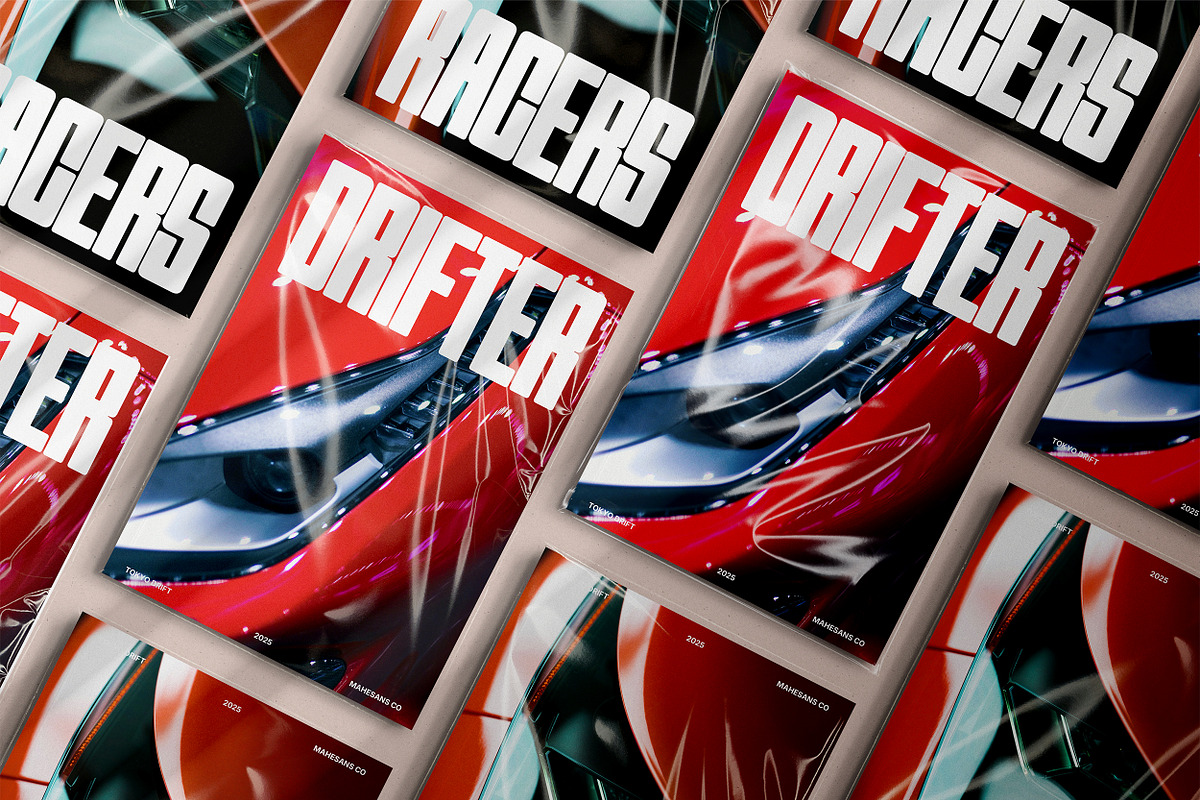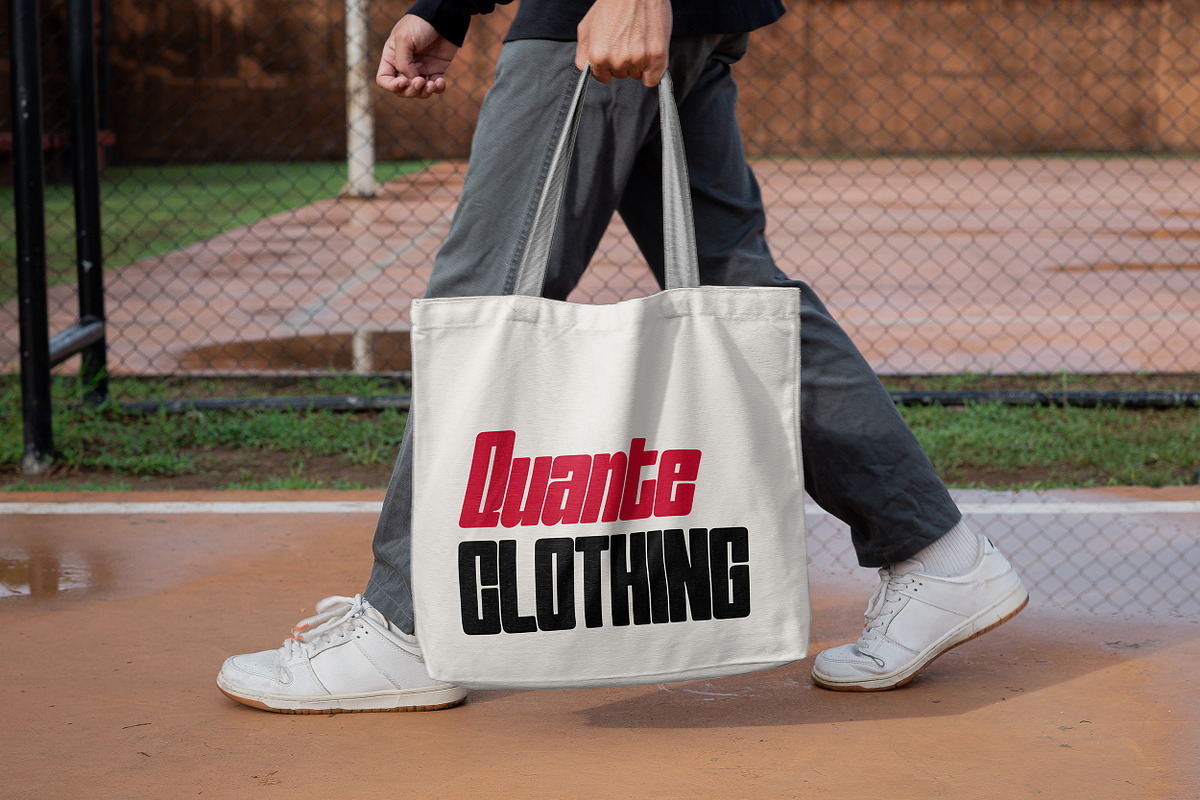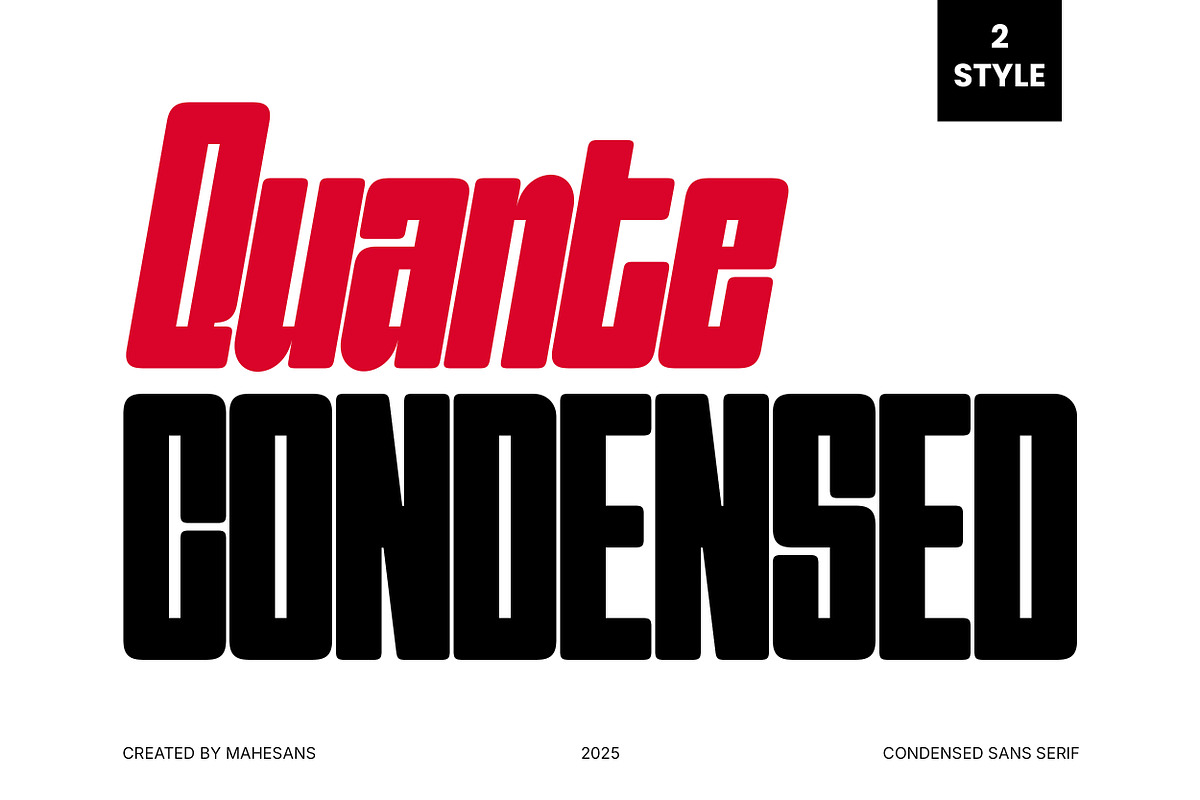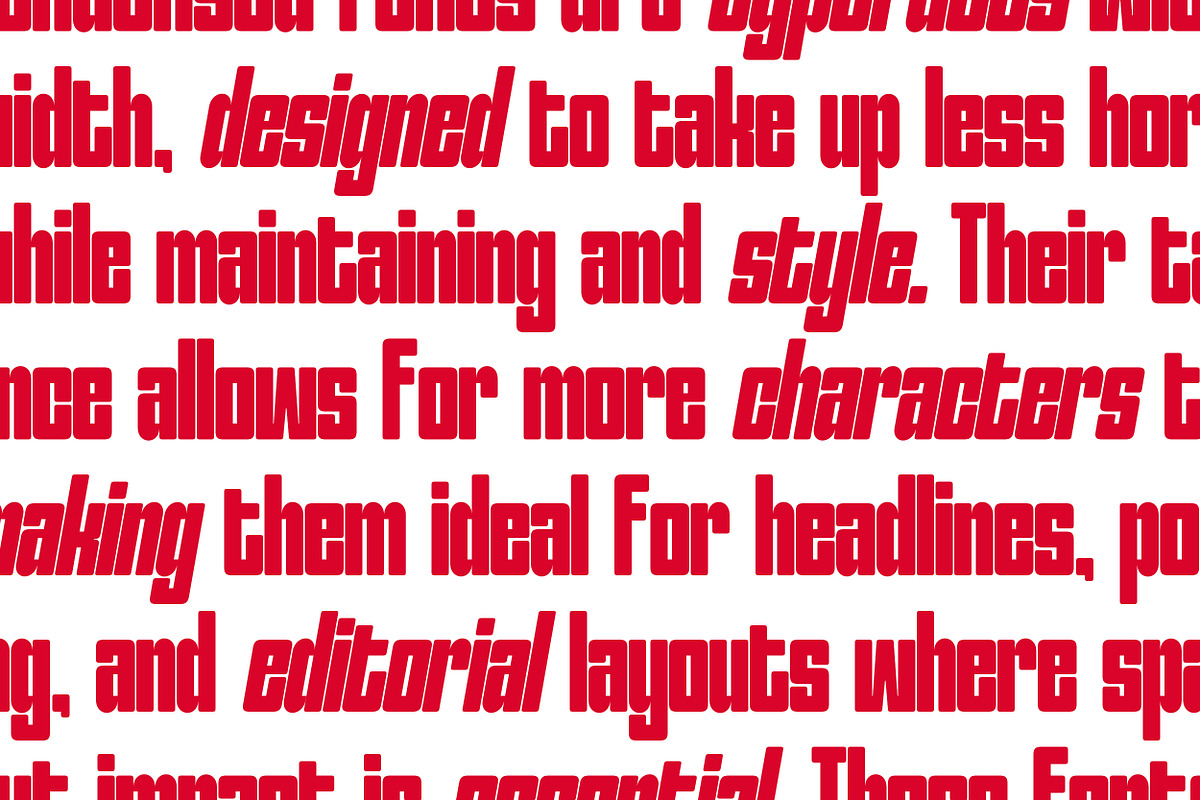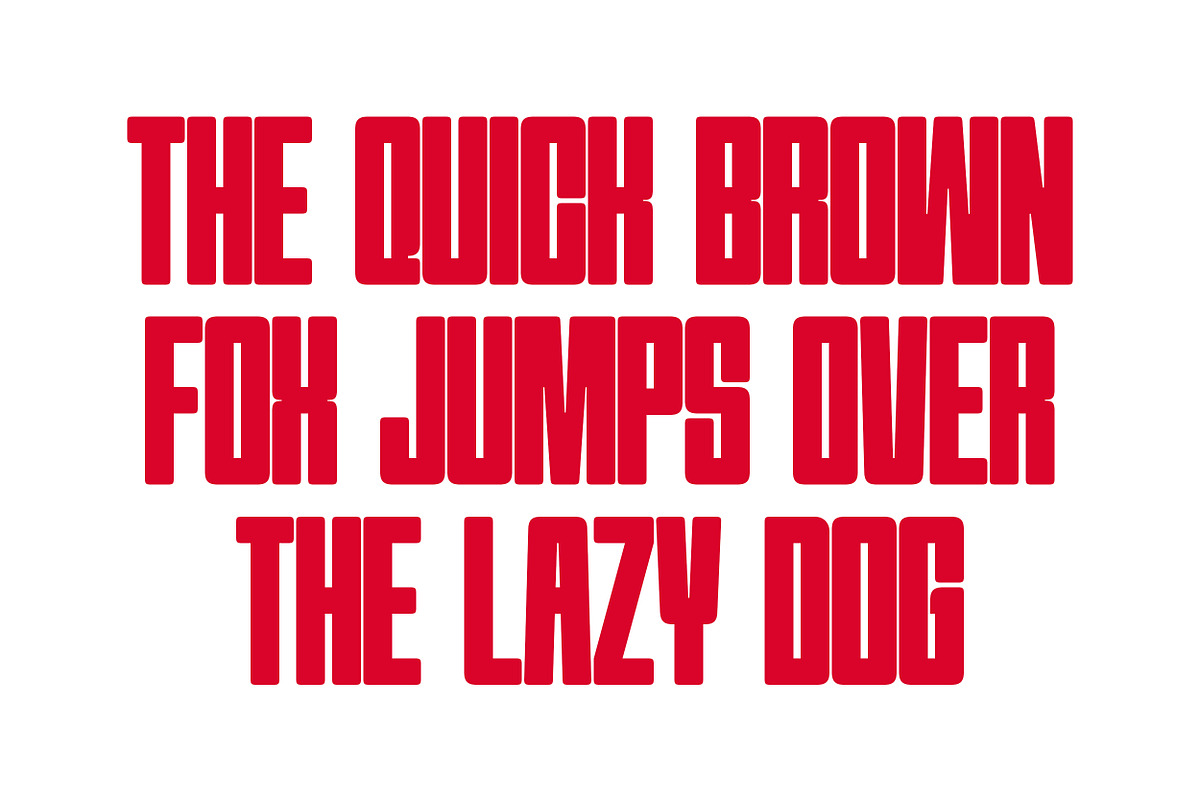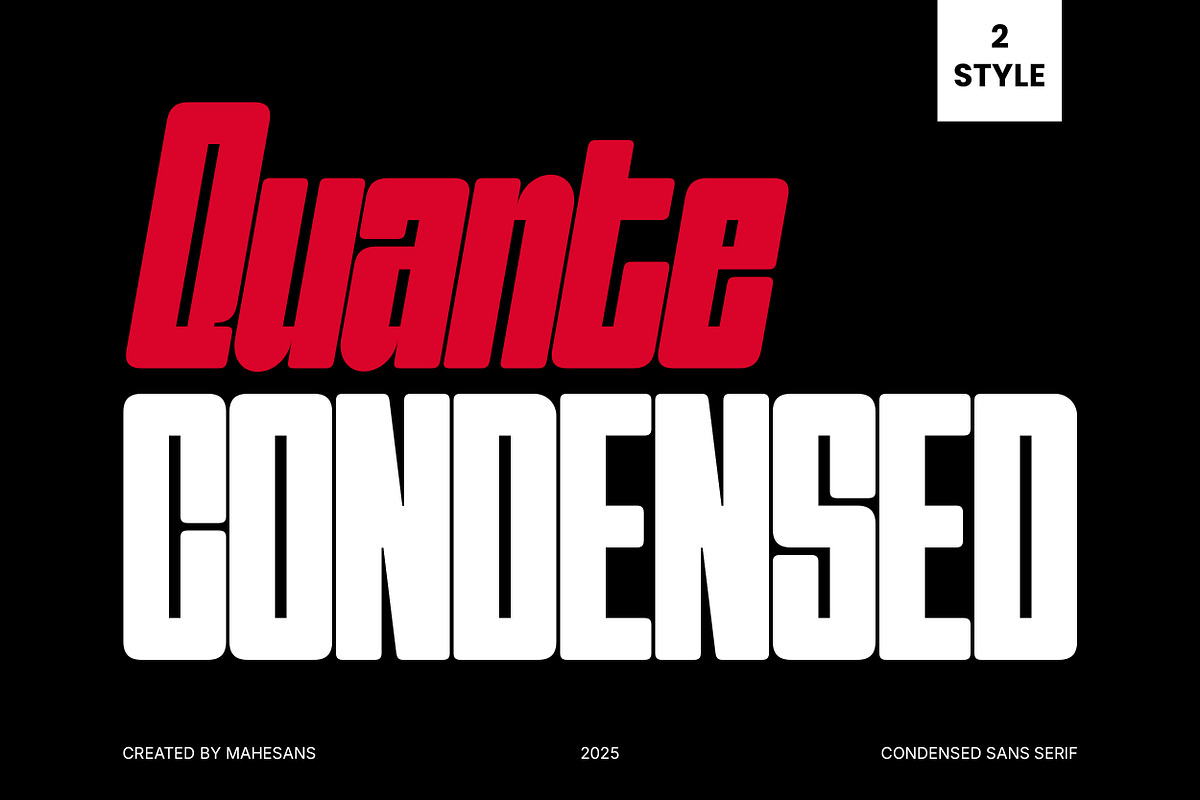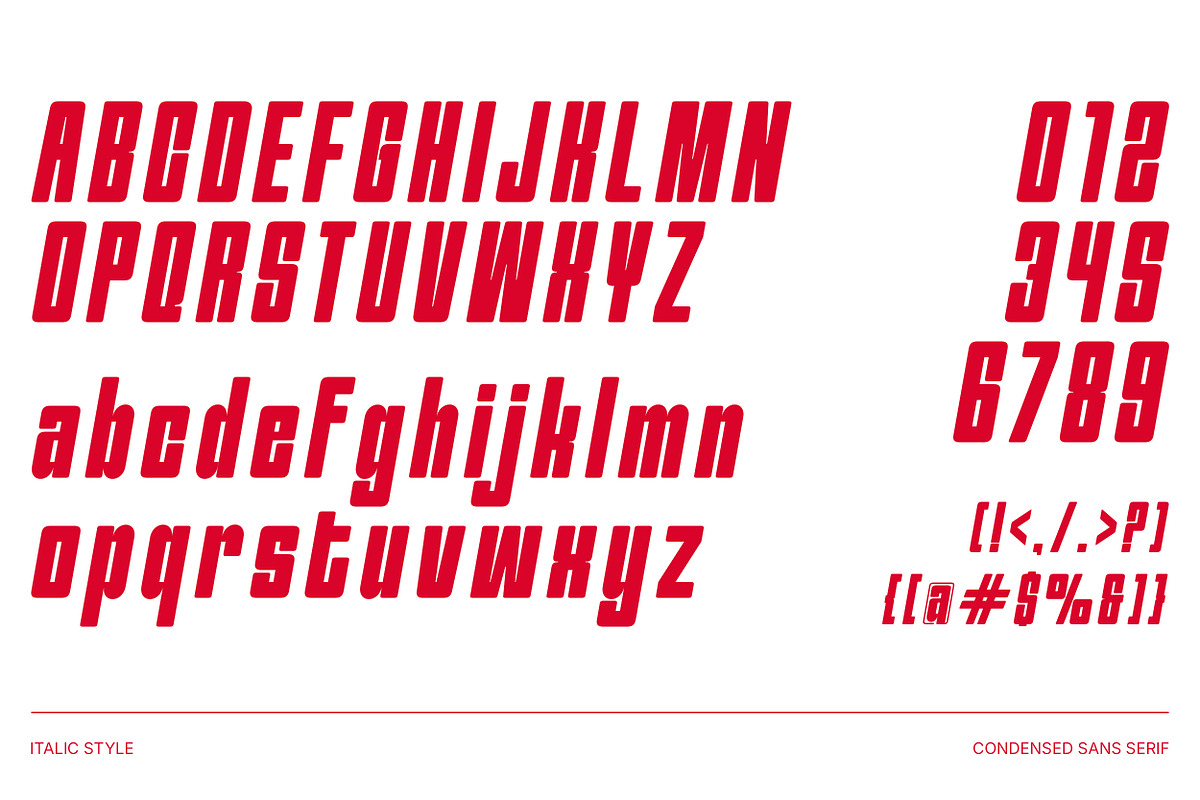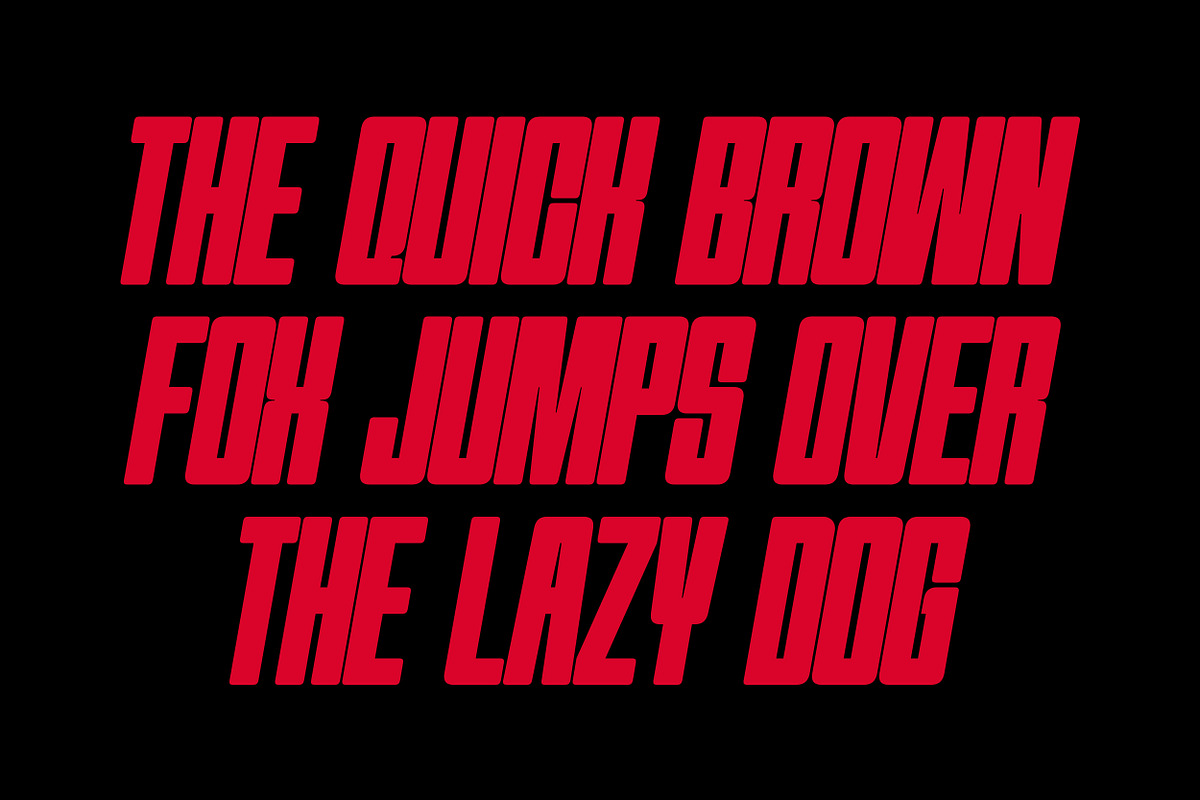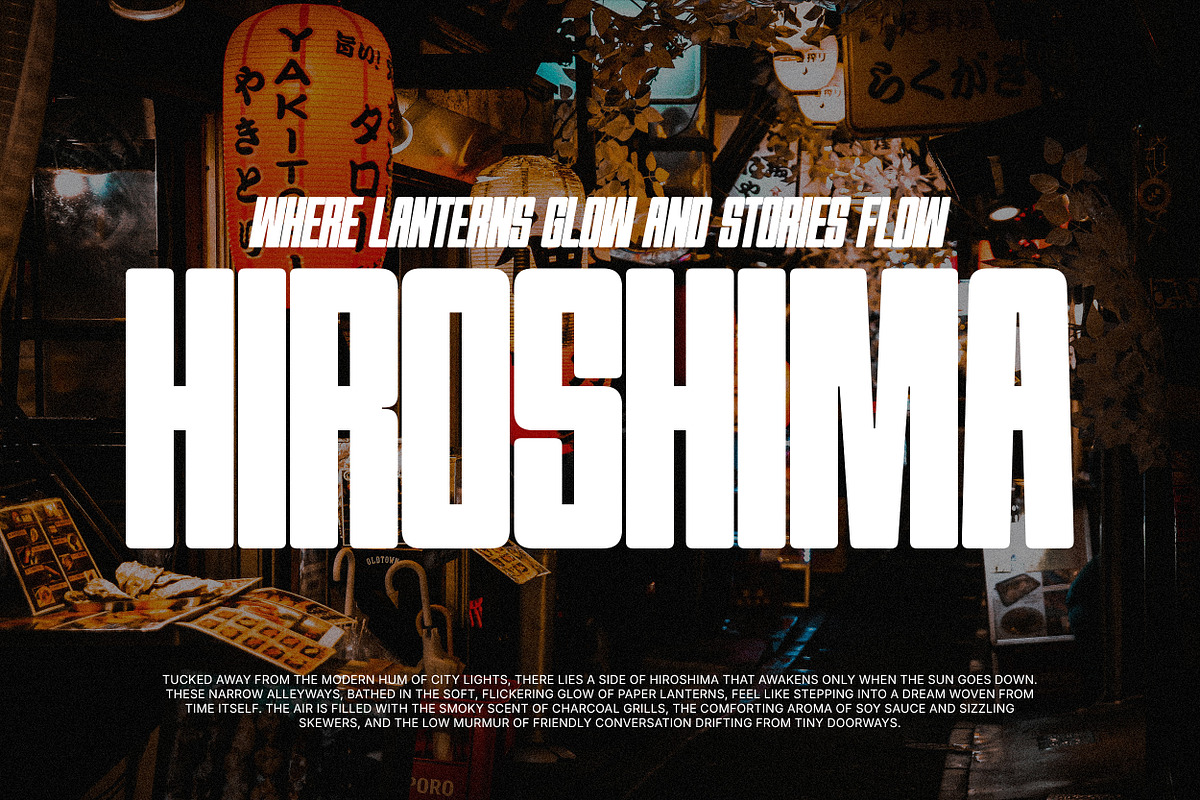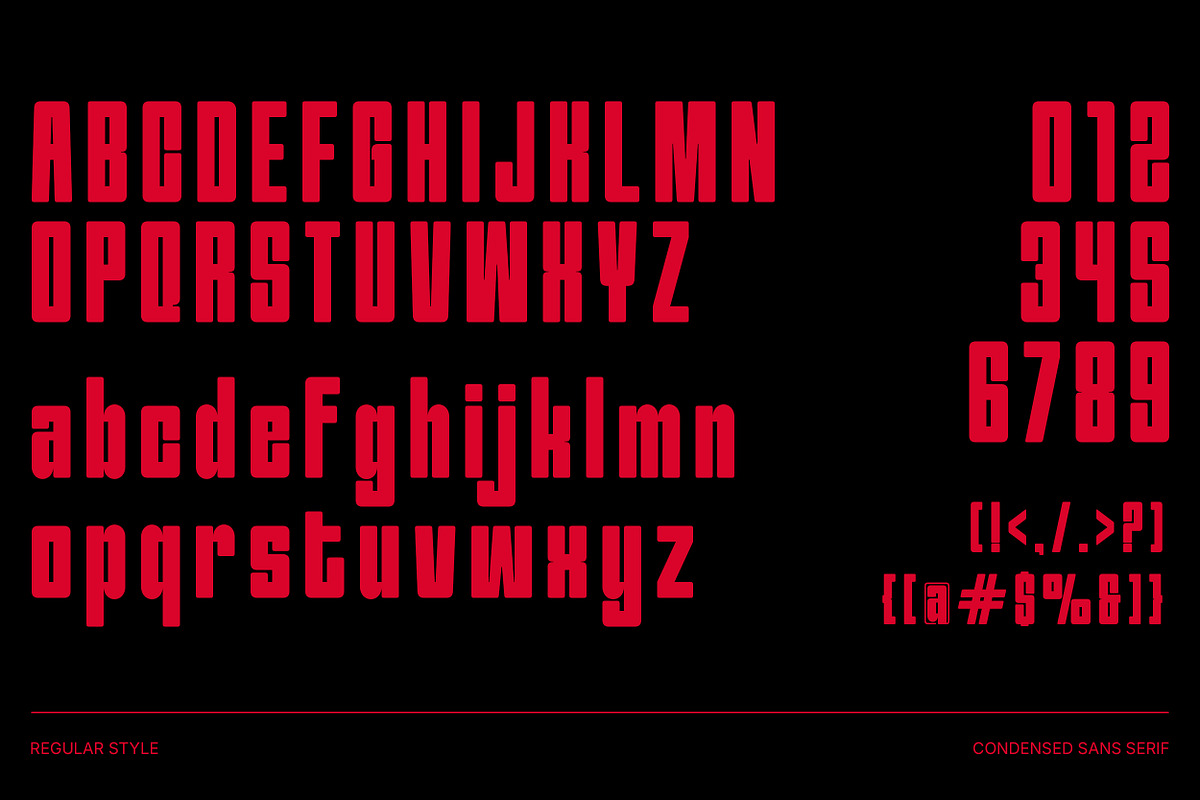
Quante Condensed | Bold Sans Serif
Quante Condensed is a bold and striking condensed sans serif typeface designed to make a powerful statement in any layout. With its ultra-tall letterforms, compact width, and strong geometric shapes, this font is made for impactful titles, bold branding, editorial headlines, and modern graphic design projects.
This font family includes 2 distinctive styles that provide flexibility across visual themes — from dynamic, energetic compositions to more minimal, structured aesthetics. Its clean curves and modular shapes give it a futuristic yet retro-inspired character, perfect for posters, music covers, sports branding, packaging, fashion editorials, and more.
- Two Styles
- Numberial & Punctuation
- Multilanguage
- Perfect for logo design, packaging, sports graphics, streetwear, editorial, and digital artwork